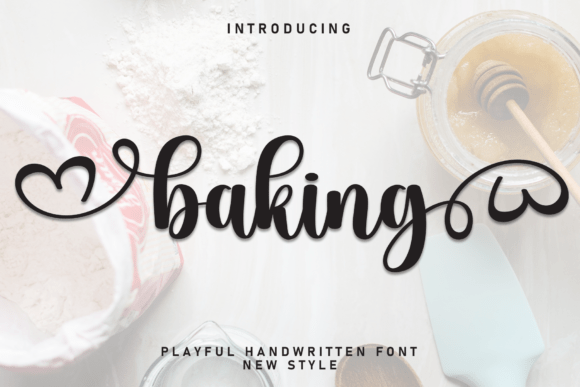
Baking Up a Design Masterpiece
As designers, we’ve all been there – staring at a blank canvas, trying to bring a concept to life. The cursor blinks, taunting us with its silence. But then, the spark hits. The idea flows, and we’re off on a creative journey. For some, it’s the perfect combination of elegance and modernity that sets the wheels in motion. Enter Baking Font, a stunning handwritten script that embodies this very essence.
This beautiful typeface is more than just a pretty face – it’s a versatile tool designed to elevate your branding, invitations, and social media presence. With its flowing strokes and organic curves, Baking Font adds a personal touch with effortless charm. Whether you’re a seasoned pro or just starting out, this font is a valuable asset to have in your design arsenal.
Baking Font Key Features
- Font Family: Baking Font is a unique, hand-drawn font designed specifically for baking-related content. It includes 120+ glyphs, making it a comprehensive solution for bakeries, food bloggers, and cooking enthusiasts.
- Unique Characteristics: The font’s distinctive, hand-drawn style and elegant curves make it an ideal choice for adding a touch of warmth and sophistication to baking-related content.
Baking Font Review
I’ve had the chance to work with “Baking Font” recently, and I must say it’s an interesting font. Here are some of my thoughts.
- The font’s playful and whimsical feel is perfect for baking-related projects or any design that needs a touch of warmth and personality.
- The font is highly customizable, with various weights and styles available to help you achieve the desired look.
- The font’s unique design elements, such as the flour splatters and mixing bowls, add a fun and creative touch to your designs.
- The font may not be suitable for formal or professional projects, as its playful design might come across as unprofessional.
- The font’s unique design elements can be overwhelming if not used sparingly, so be careful not to overdo it.
- The font’s availability in certain languages and characters may be limited, which could be a problem for global projects.
Overall, I think “Baking Font” is a great addition to any designer’s toolkit, especially for projects that require a playful and creative touch. However, it’s essential to use it judiciously and consider the project’s context and audience.
Use Baking Font to add a personal touch to your designs, such as:
Recipe cards and cookbooks
Food blog headers and titles
Wedding invitations and menus
Remember to experiment with different font styles and settings to get the most out of Baking Font.